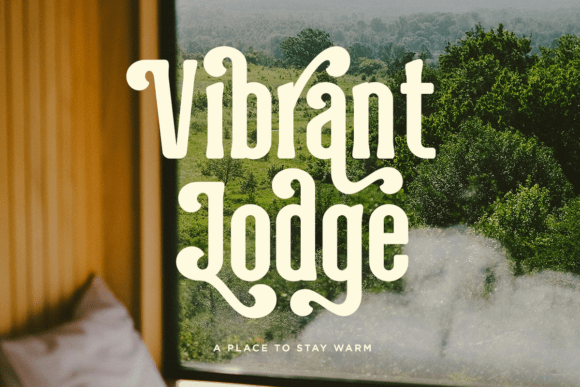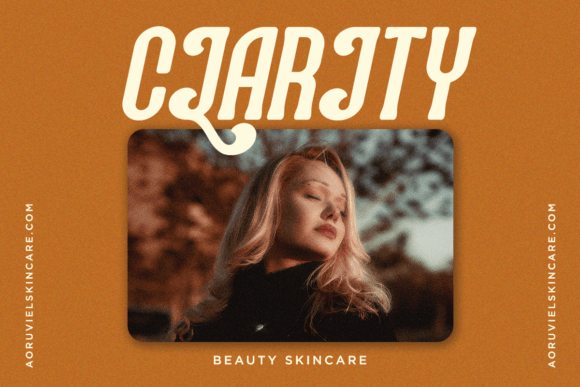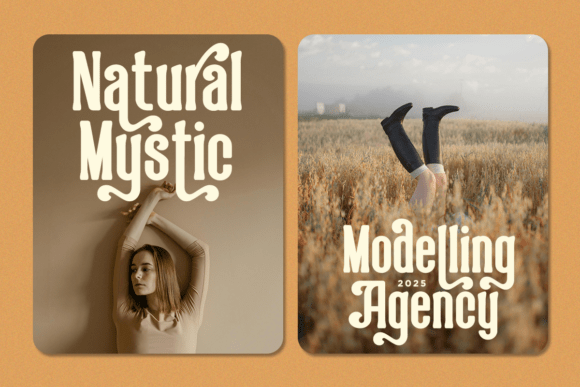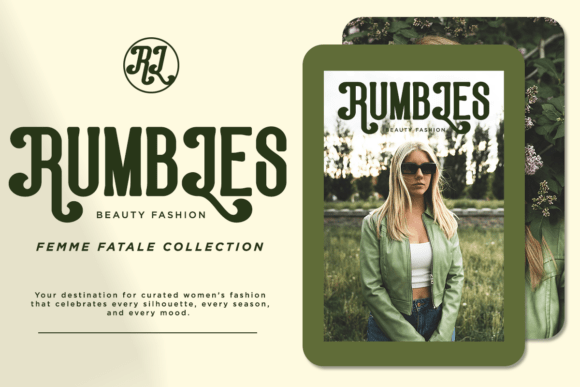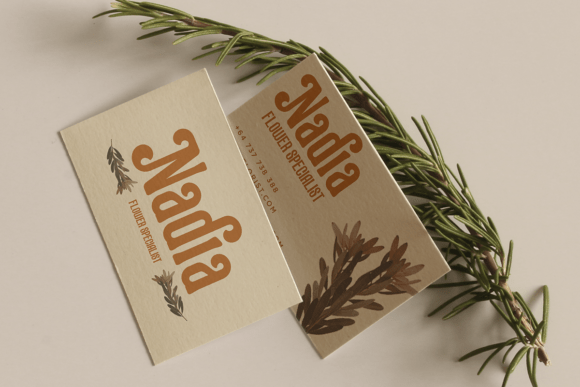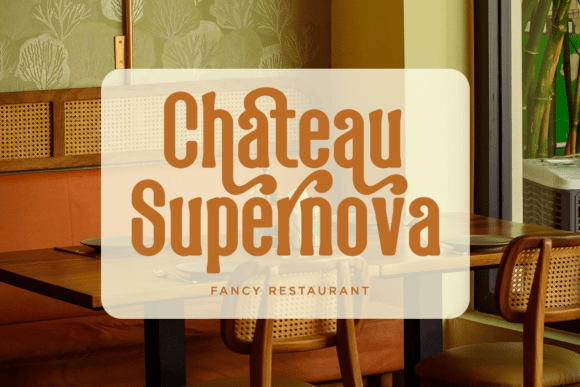
Introduction to Keilora Font Font
Fonts play a crucial role in design, and the Keilora Font font is a typeface that brings both character and versatility to any project. Whether you’re working on a branding project, a website, or a print design, the Keilora Font font offers a unique style that can elevate your work.
Keilora is a modern condensed serif font with a tall and clean look.
It combines tall clean serifs with rounded swash alternates and a contemporary twist, creating a versatile, high-contrast look suitable for both text and headlines Its combination of boldness and legibility makes it suitable for a wide range of designs, from editorial to branding.
Key Features of Keilora Font Font
Why Choose Keilora Font Font?
The Keilora Font font is more than just a typeface – it’s a design tool that helps you communicate your message with style and clarity. Its unique character set and versatile design make it suitable for a wide range of applications, from elegant invitations to bold headlines.
With its carefully crafted letterforms and balanced proportions, the Keilora Font font ensures readability and visual appeal across all mediums.
What makes Keilora Font font special?
The Keilora Font font stands out with its unique design, exceptional readability, and versatility across various design applications.